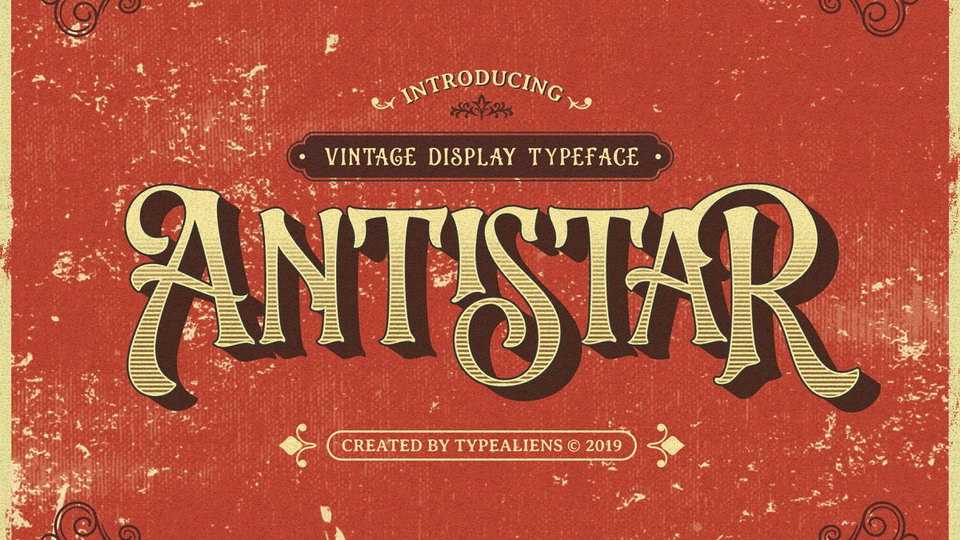
Download Antistar font, a decorative display typeface with a classic style. Antistar is perfect for logos, posters or other branding needs with a vintage feel.
Designer: Typealiens